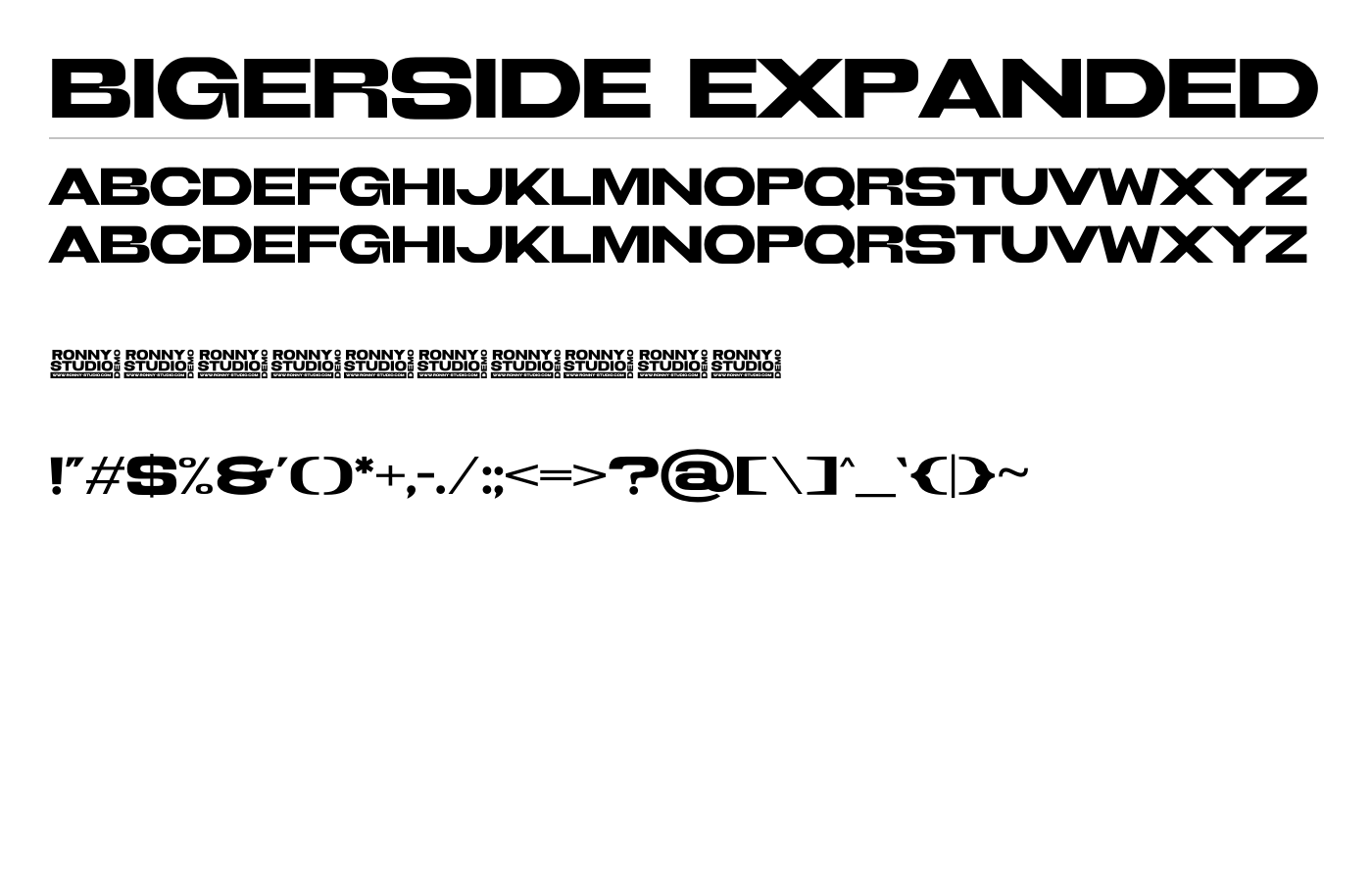
Bigerside Expanded is a bold, wide sans serif font characterized by its strong, geometric letterforms and high-impact presence. Its thick strokes with low contrast and extended width create a modern, assertive feel ideal for headlines, branding, and design projects that demand attention and clarity. This font works well for logos, posters, and editorial uses where a bold and contemporary statement is needed.
Bigerside Expanded Font
About Bigerside Expanded Font